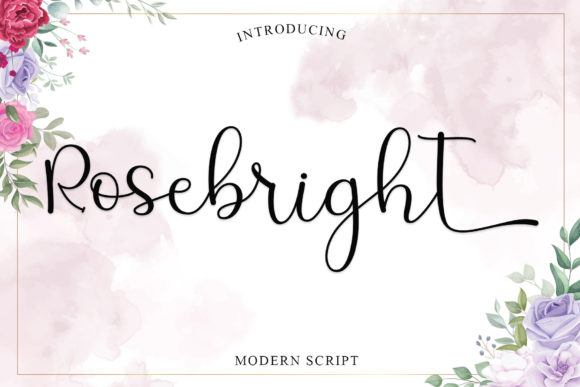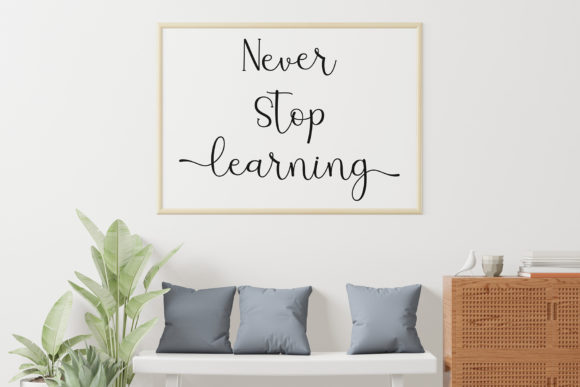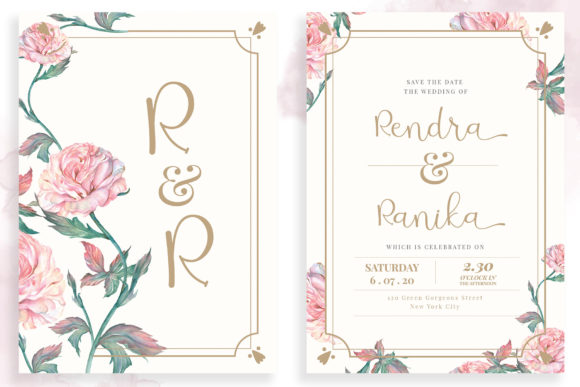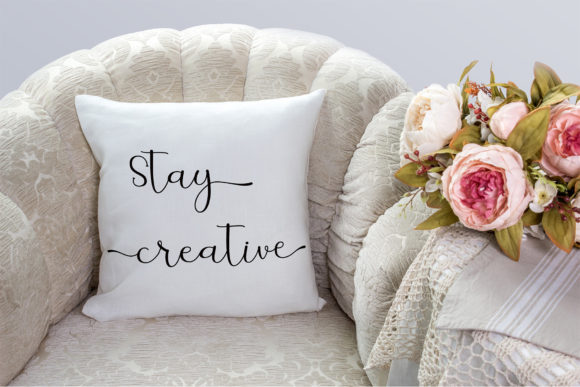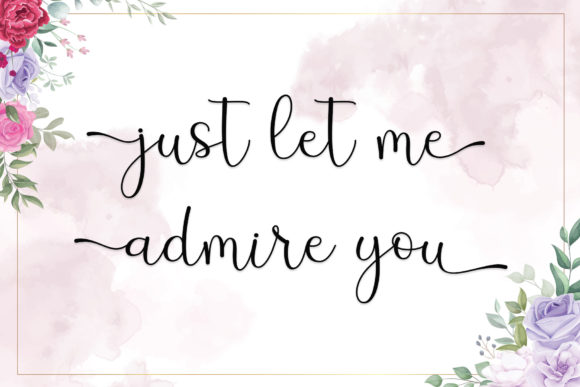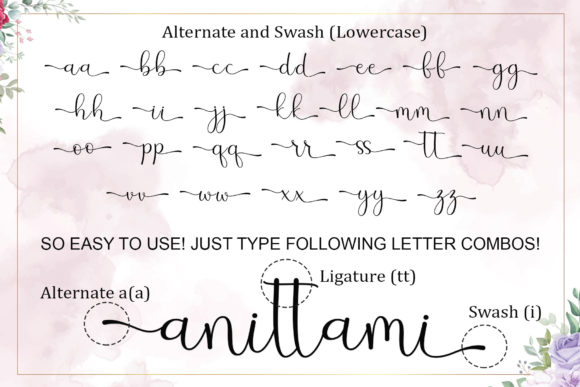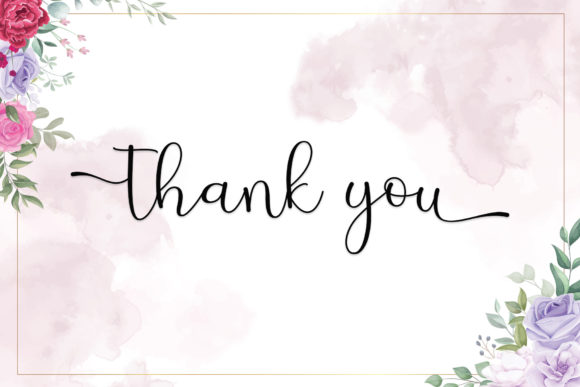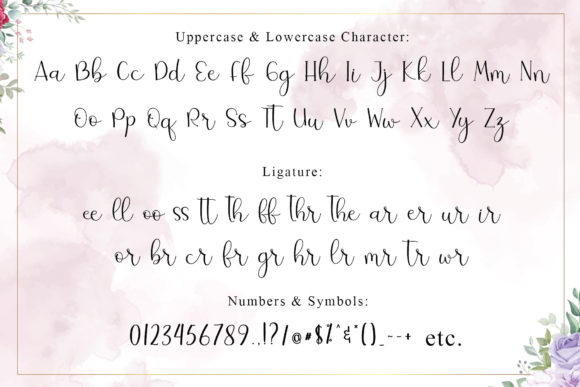
Rosebright Font
About Rosebright Font
“Rosebright” is a stylish and versatile display font that adds a touch of coolness and sophistication to your design projects. With its unique and eye-catching letterforms, this font is sure to make your designs stand out.
The distinctive character of “Rosebright” makes it a perfect choice for a wide range of projects. Whether you’re designing logos, headlines, posters, social media graphics, or any other creative endeavor, this font will bring a cool and contemporary vibe to your work.
The PUA (Private Use Area) encoding of “Rosebright” allows for easy access to a variety of glyphs and swashes. This means you can effortlessly customize your designs and add stylistic variations to make them truly unique. Let your creativity flow and explore the different possibilities that “Rosebright” offers.
The clean lines and balanced proportions of “Rosebright” make it highly legible, even at smaller sizes. This makes it suitable for both display purposes and body text, providing flexibility in your design projects.
Whether you’re working on branding, advertising, packaging, or any other creative endeavor, “Rosebright” will bring a touch of coolness and elegance to your designs. Its versatility and unique style make it a valuable addition to your font collection.